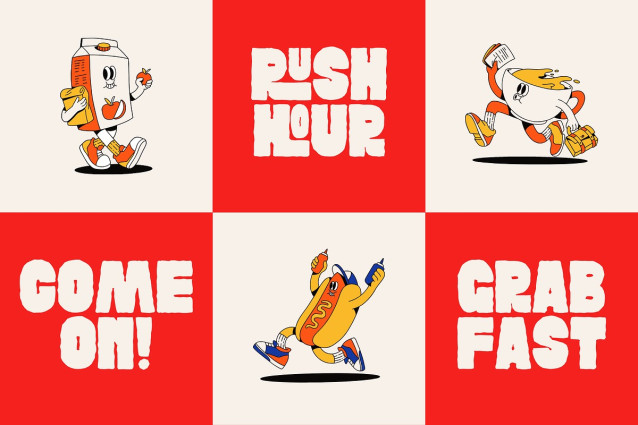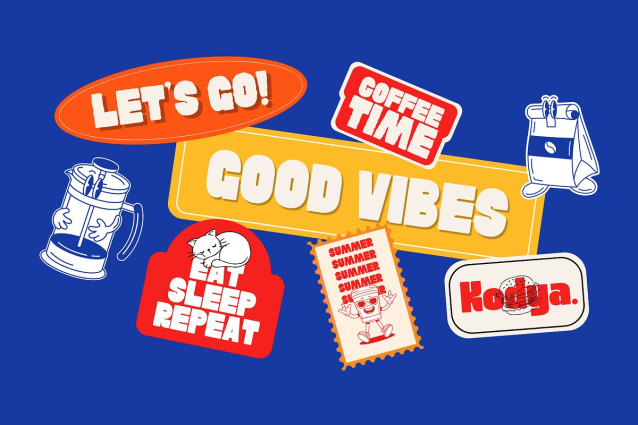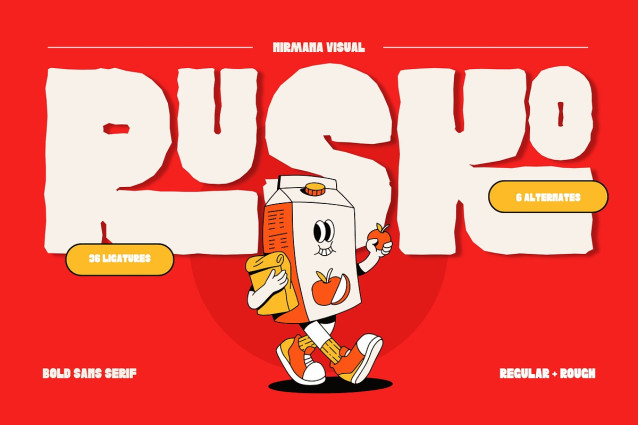
Rusko Font a bold, energetic, and playful sans-serif font designed to bring an instant burst of personality to your creative projects. With its thick, chunky letterforms and quirky, hand-drawn feel, RUSKO is the ultimate display typeface for designers looking to create eye-catching, high-impact visuals.
Whether you are designing retro-inspired packaging, vibrant streetwear branding, or modern kids’ product layouts, this versatile font pack delivers an unmistakable, fun-loving aesthetic that grabs attention immediately.